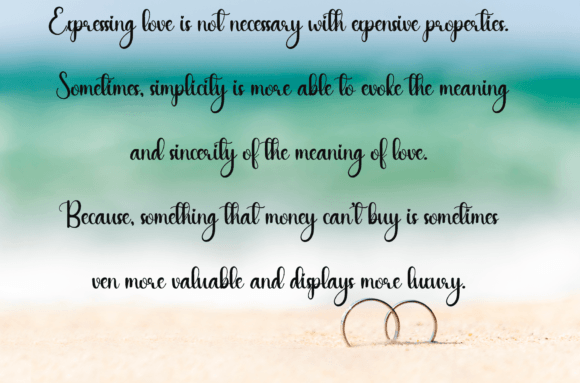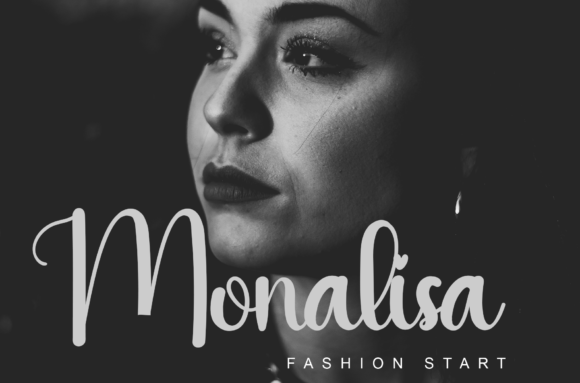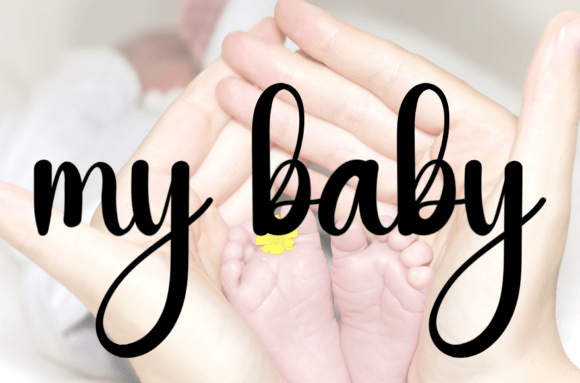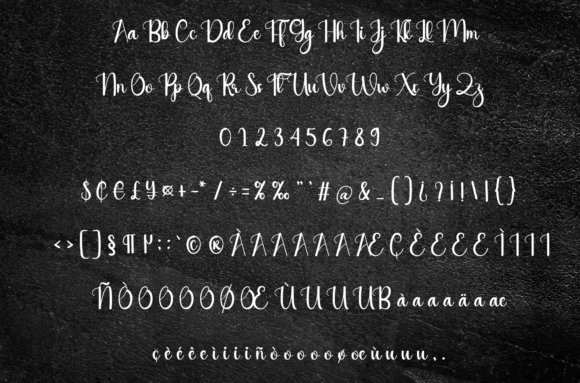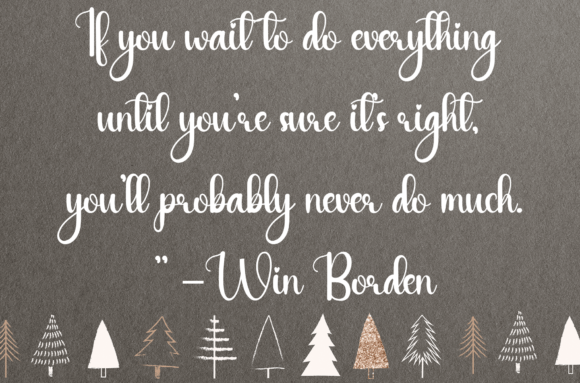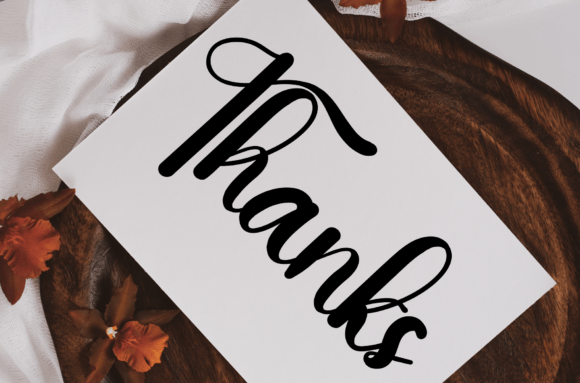
The Choice Font: Elevate Your Designs with a Touch of Elegance
Have you ever been in the middle of a design project, and suddenly, you’re stuck on finding the perfect font? I recall a recent experience where I was working on a wedding invitation design, and my client specifically asked for a font that exuded elegance and sophistication. After hours of searching, I stumbled upon the Choice Font, which instantly became my go-to. In this article, I’ll share my journey with this beautiful font, its features, and how you can make the most of it in your designs.
An Honest Review of Choice Font
The Choice Font has quickly become a favorite in my design arsenal, and here’s why:
- ✨ Elegant and Sophisticated: This font is perfect for projects that require a touch of luxury and refinement.
- ✅ Versatile: From wall displays to social media post logos, wedding invitations, and product packaging, this font adapts seamlessly.
- ✨ Handwritten Feel: The font’s subtle imperfections give it a warm, handwritten feel that’s perfect for adding a personal touch.
While the Choice Font is incredibly versatile, there are a few minor quirks to be aware of:
- ⚠️ Limited Use on Small Sizes: The font’s intricate details can get lost when used at very small sizes. It’s best suited for medium to large sizes.
- 🤔 Kerning Issues: As with any font, you may need to adjust kerning for optimal results, especially when using it for body text.
A Practical Guide to Using Choice Font
The Backstory of Choice Font
The Choice Font was inspired by the art of handwriting and the desire to create a digital font that feels personal and approachable. The designer aimed to craft a font that would be both elegant and versatile, suitable for a wide range of creative projects. The result is a font that feels both luxurious and accessible.
| Font Name | Choice Font |
| What makes the Choice Font unique? | The Choice Font stands out due to its elegant, sophisticated feel and versatility across various design projects. |
| Is the Choice Font suitable for body text? | While it’s primarily designed for display purposes, the Choice Font can be used for body text in larger sizes or for short paragraphs. |